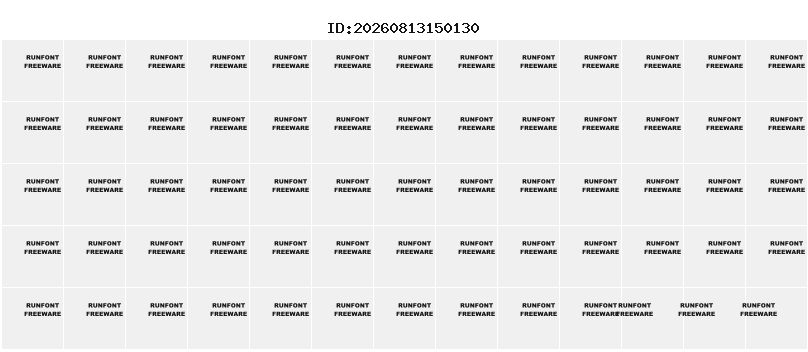
RUNFONT Preview
• Font Name: RUNFONT
• Full Font Name: RUNFONT
• Character Count: 19
About RUNFONT.ttf
RUNFONT.ttf is a modern, elegant sans-serif font designed for ultimate readability and visual harmony. Perfect for branding, headlines, web design, and print materials.